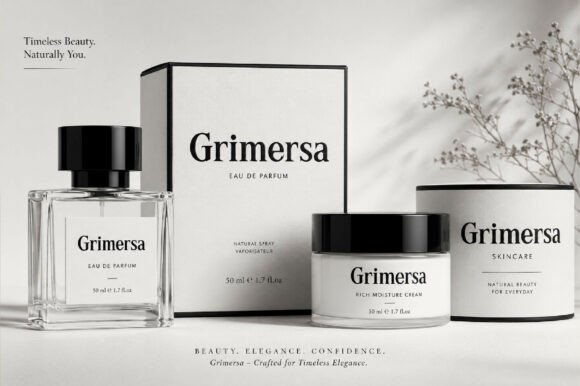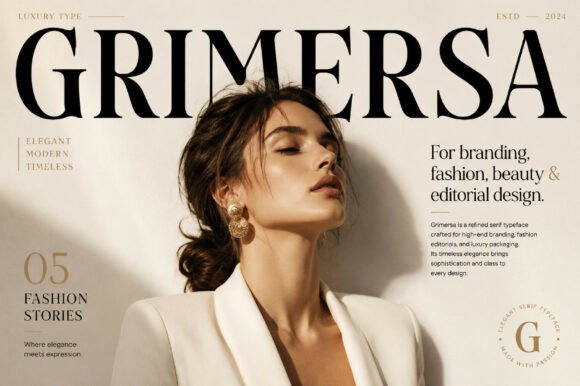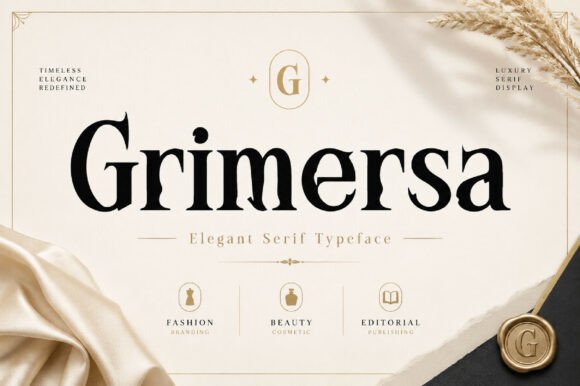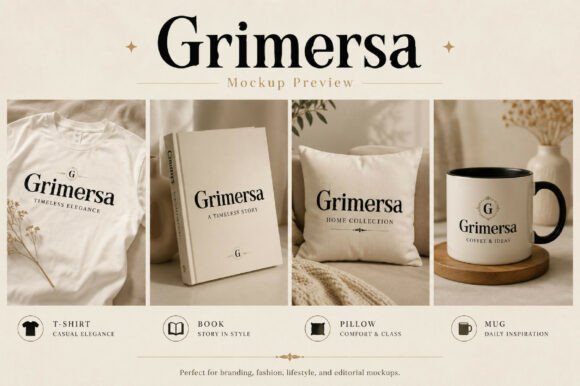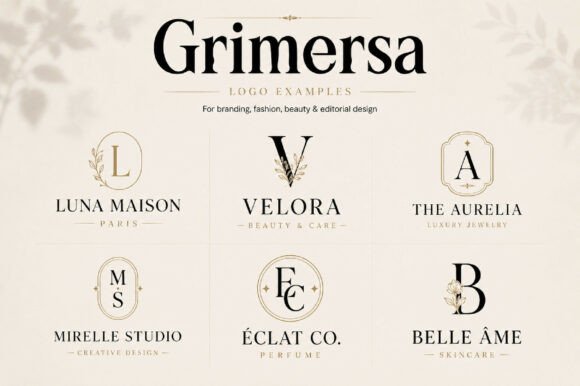
Discover the Timeless Elegance of Grimersa Font: Elevate Your Designs with Sophistication
In the world of typography, few fonts manage to strike a balance between classic elegance and modern sophistication. Grimersa Font, however, effortlessly achieves this delicate balance, making it a go-to choice for designers seeking to add a touch of luxury to their creations. This exquisite serif font is distinguished by its bold, refined letterforms that exude an aura of timeless appeal, perfect for elevating luxury branding, editorial design, upmarket packaging, and posh invitations.
The Allure of Grimersa Font
At the heart of Grimersa’s allure lies its refined serif-style design, which embodies a potent combination of classic sophistication and contemporary elegance. The font’s bold serifs and graceful curves give a confident and stylish nod to tradition while simultaneously embracing modern trends. This unique blend of old and new makes Grimersa an irresistible choice for designers seeking to create a highly professional, elegant aura in their work.
Perfect for Luxury Branding and Editorial Design
Grimersa Font is particularly well-suited for luxury branding, logo development, magazine layout designs, fashion initiatives, and beauty package designs. Its sophisticated typography and refined letterforms make it an ideal choice for creating a lasting impression. Whether you’re designing a high-end fashion brochure, a luxury car advertisement, or a premium product packaging, Grimersa Font is sure to captivate your audience with its exceptional grace and poise.
Elevate Your Designs with Grimersa
From wedding invitations and premium stationery to website headers and posh posters, Grimersa Font offers a sterling platform for creating elegant and sophisticated designs. Its versatility and timeless appeal make it a valuable asset for designers seeking to add a touch of luxury to their work. With Grimersa, you can:
- Create stunning luxury branding and logo designs that exude elegance and sophistication
- Elevate your editorial designs with refined typography and classic style
- Develop premium packaging and beauty designs that stand out from the crowd
- Design posh invitations and stationery that make a lasting impression
- Enhance your website headers and posters with a touch of classic elegance
Why Choose Grimersa Font?
So, why choose Grimersa Font over other serif fonts? Here are just a few reasons why designers and crafters love Grimersa:
- Timeless appeal: Grimersa’s classic design ensures that your work will remain stylish and relevant for years to come
- Versatility: From luxury branding to editorial design, Grimersa is a versatile font that can be used in a wide range of applications
- Elegance and sophistication: Grimersa’s refined letterforms and serif-style design make it perfect for creating elegant and sophisticated designs
- Confident and stylish: Grimersa’s bold serifs and graceful curves give a confident and stylish nod to tradition while embracing modern trends
In conclusion, Grimersa Font is a classic serif font that offers a unique blend of timeless elegance and modern sophistication. Its refined letterforms, bold serifs, and graceful curves make it perfect for luxury branding, editorial design, upmarket packaging, and posh invitations. Whether you’re a designer or crafter, Grimersa Font is a valuable asset that can help elevate your work and make a lasting impression on your audience. So why wait? Discover the exceptional grace of Grimersa Font today and take your designs to the next level!